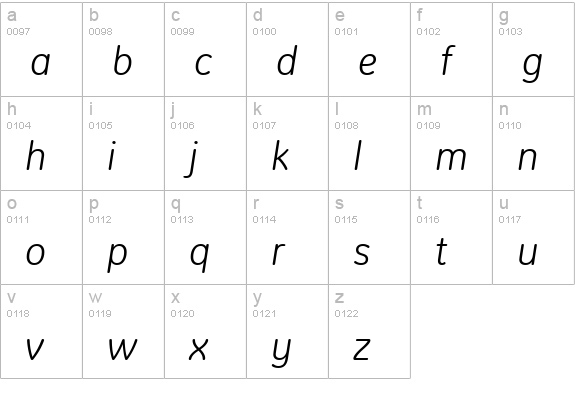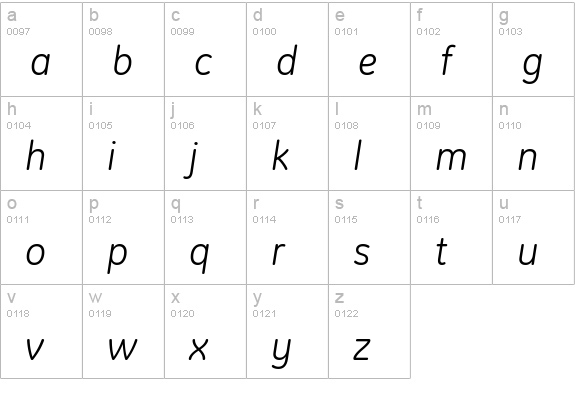
GE Inspira Italic Font Details
GE Inspira Italic is a distinctive, italic variant in the GE typeface family \xE2\x80\x94 well suited to design and typography projects.
The GE Inspira Italic font exudes elegance and sophistication with its sleek and modern design. Its italic style adds a touch of flair and sophistication to any project, making it perfect for both professional and creative endeavors. The clean lines and smooth curves of this font create a harmonious balance that is visually appealing and easy to read. What sets GE Inspira Italic font apart is not only its aesthetic appeal but also its accessibility. This premium font is available for free download at FontsMarket.com, allowing users to enhance their designs without any cost. Whether you're working on a branding project, creating marketing materials, or designing invitations, GE Inspira Italic font is a versatile and reliable choice that will elevate your work to the next level. Embrace the beauty and versatility of GE Inspira Italic font today by downloading it for free at FontsMarket.com. Experience the power of this font to transform your designs and leave a lasting impression on your audience.